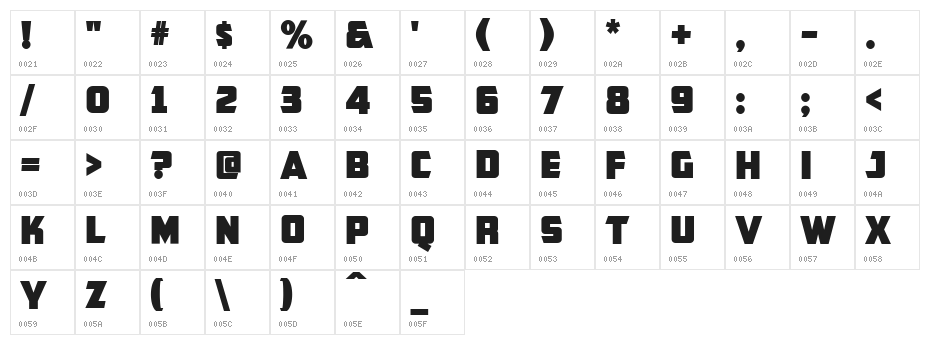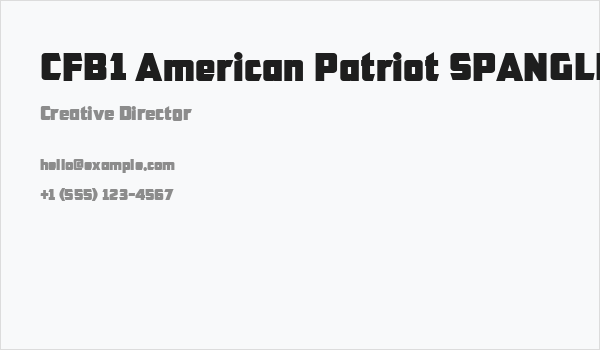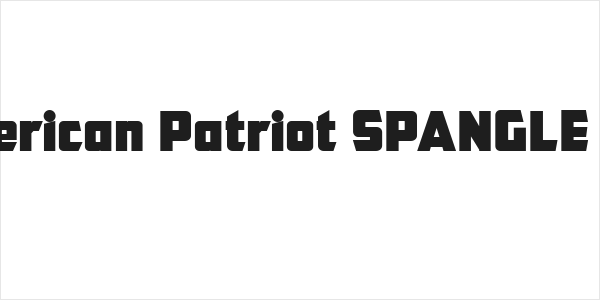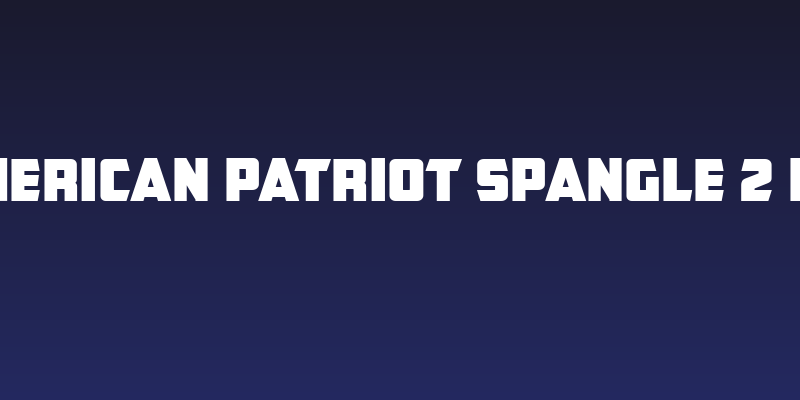
CFB1 American Patriot SPANGLE 2 Normal Font
CFB1 American Patriot SPANGLE 2 Normal Description
This font features a bold, impactful style with strong geometric shapes and a solid presence. The characters are blocky and robust, with a uniform thickness throughout, giving it a powerful and assertive look. The uppercase and lowercase letters maintain a consistent design, enhancing readability while preserving a distinctive aesthetic. The numerals and special characters are crafted with the same boldness, ensuring a cohesive appearance across all text. This font is ideal for making a statement, with its clear and commanding style.